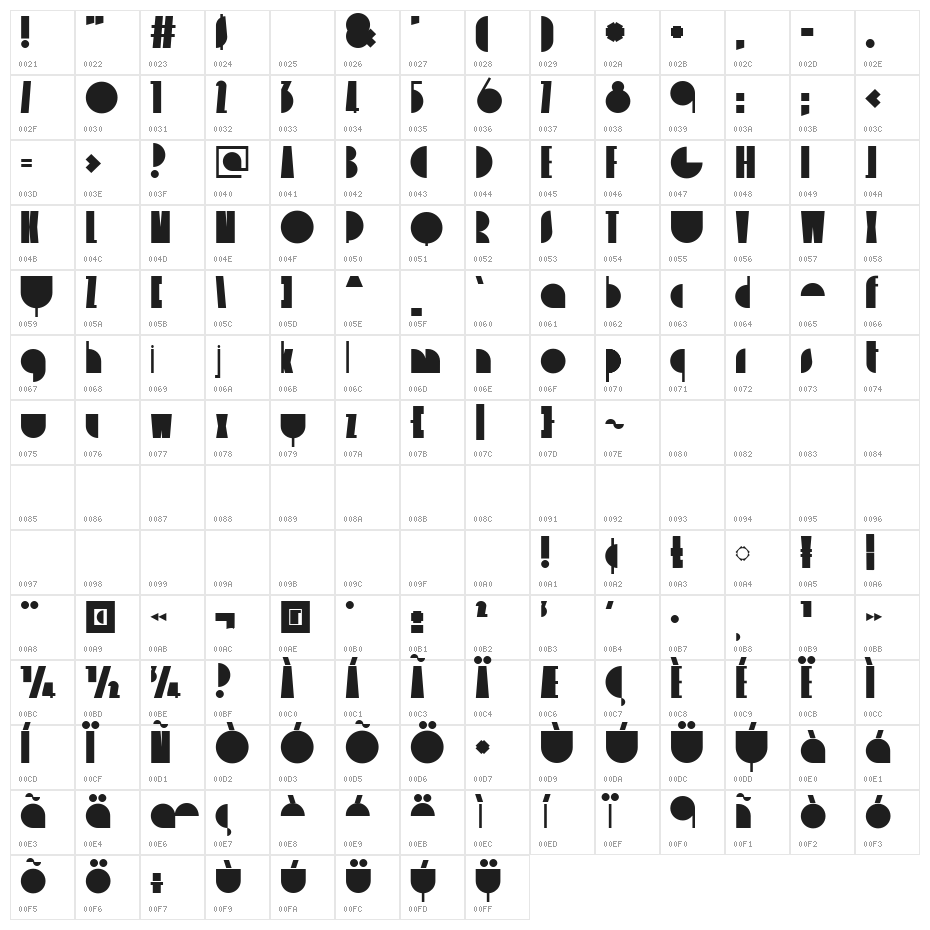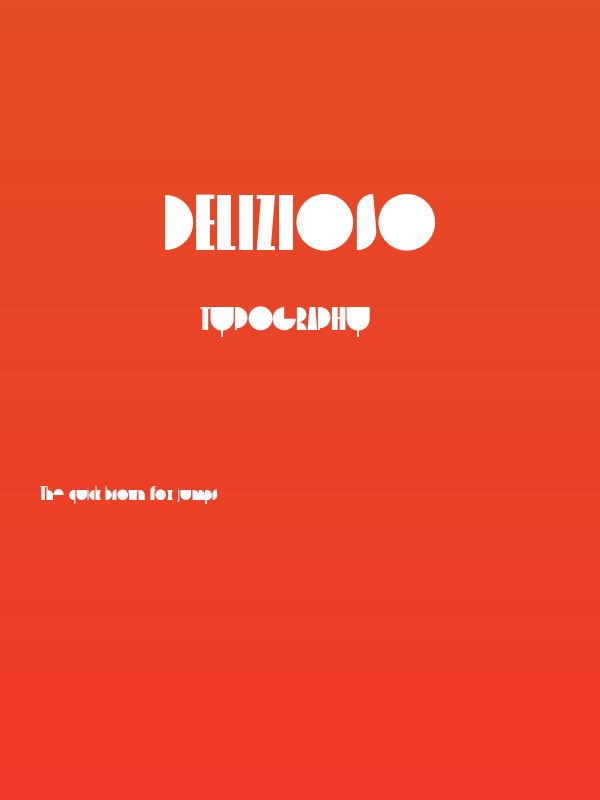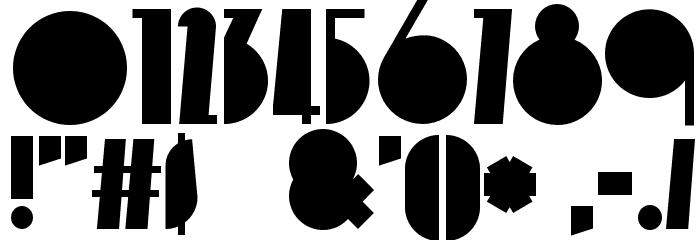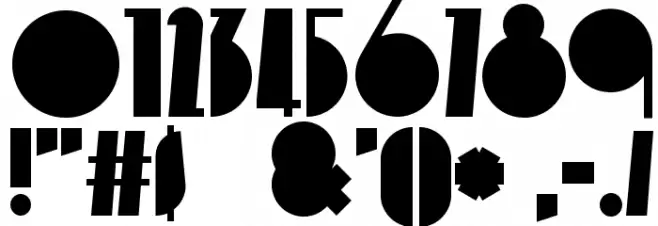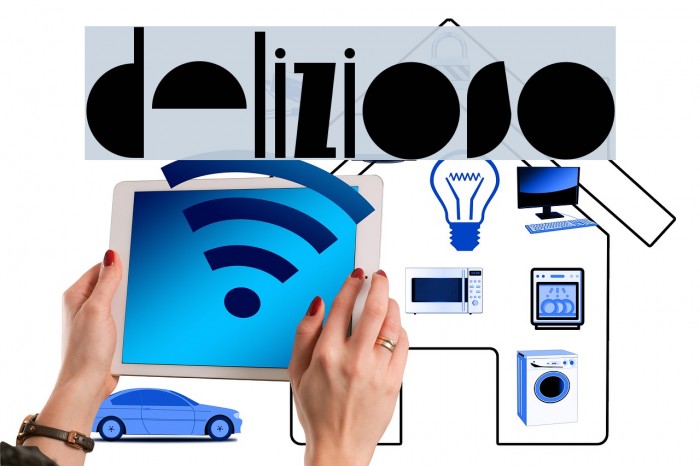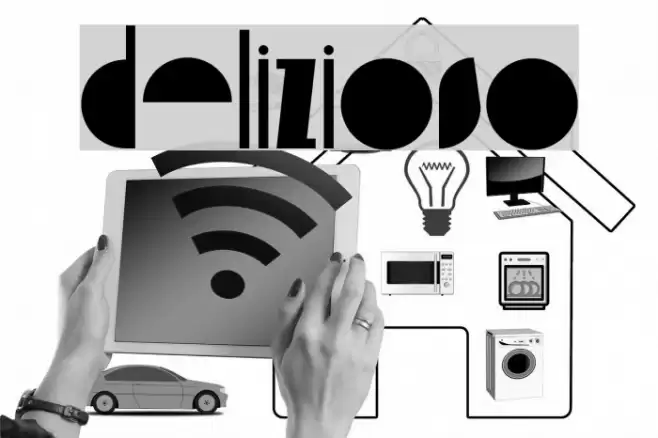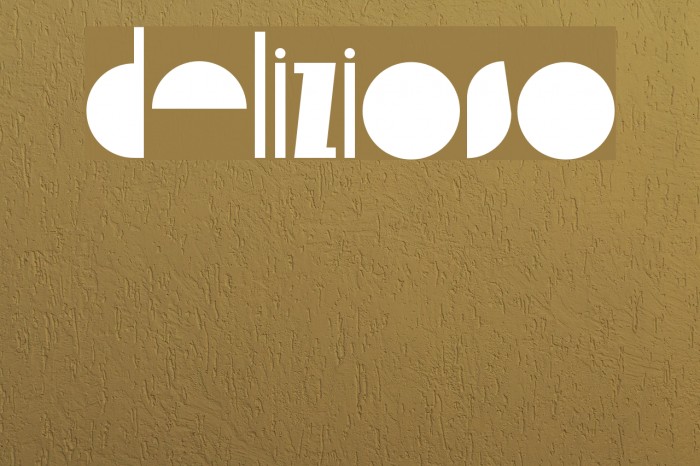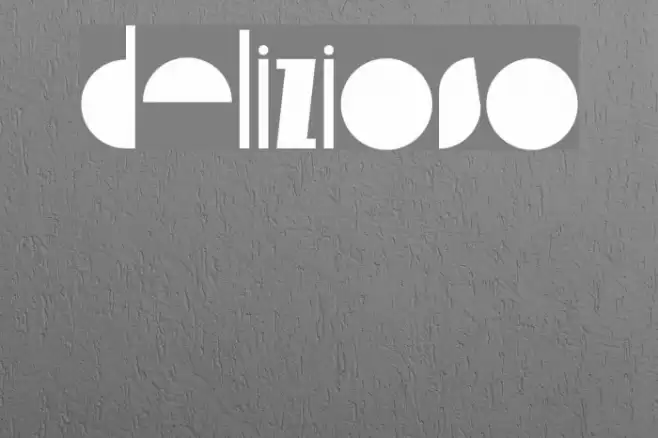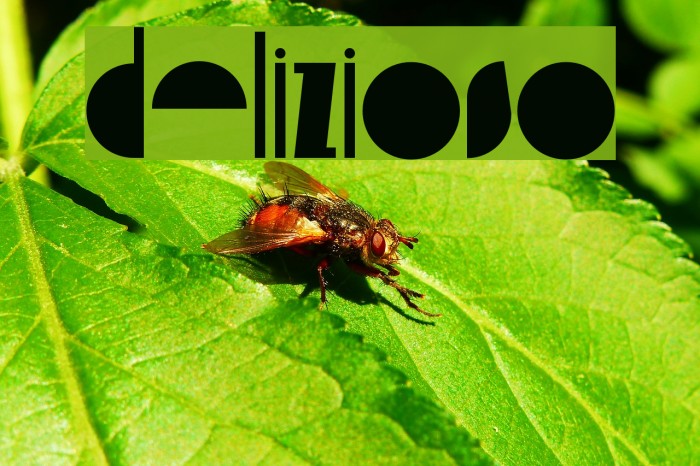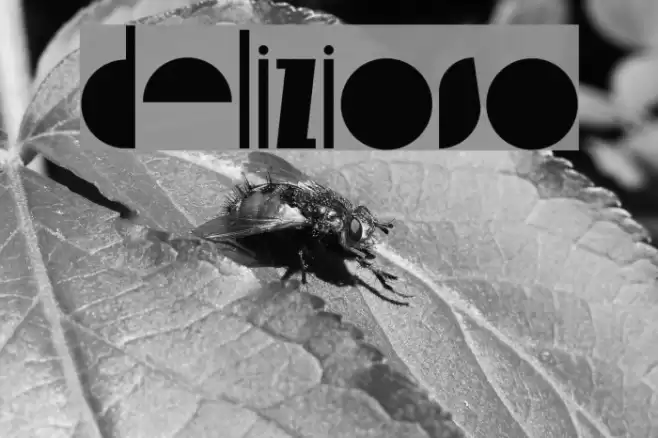
delizioso Font
delizioso Description
This font features bold, geometric shapes with a strong emphasis on circular and rectangular forms. The characters are constructed with a high level of contrast, showcasing thick, solid strokes that create a striking visual impact. The uppercase letters are particularly distinctive, with some characters resembling abstract art pieces due to their unique shapes. The lowercase letters maintain a consistent style, offering a playful yet structured appearance. Numbers and special characters follow the same bold and geometric design, making them stand out. The overall aesthetic is modern and artistic, ideal for projects that require a bold statement.